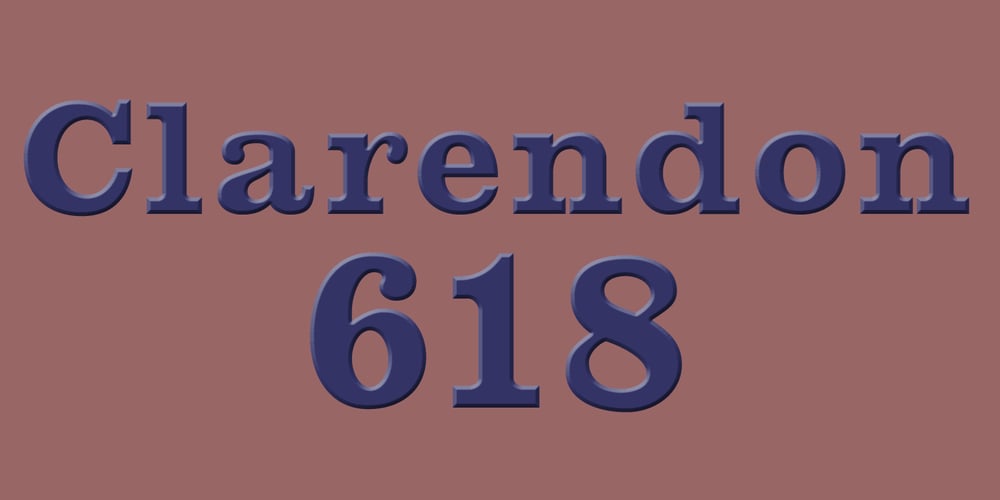
Clarendon 618
Clarendon 618 font
Clarendon 618 Font Family was designed by Jordan Davies and published by Wooden Type Fonts. Clarendon 618 contains 1 styles and family package options. One of the classic Clarendon fonts, always useful, originally created in the 19th century.